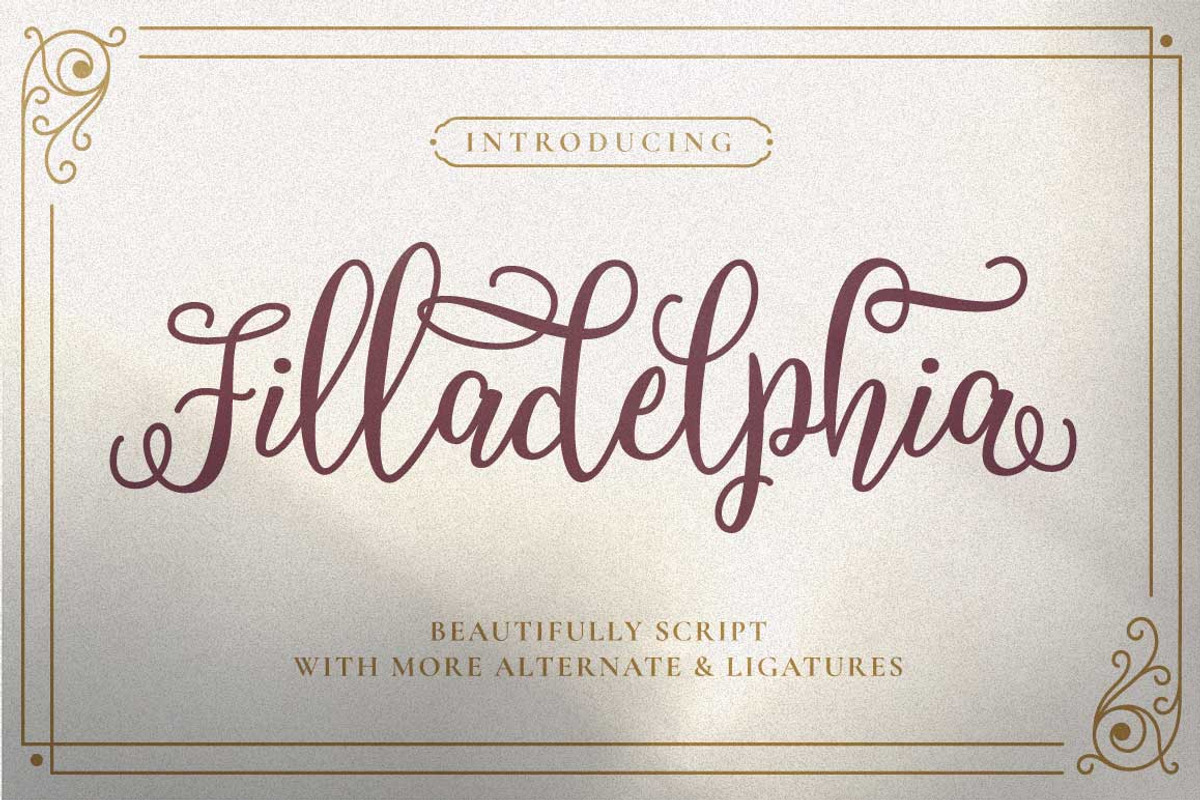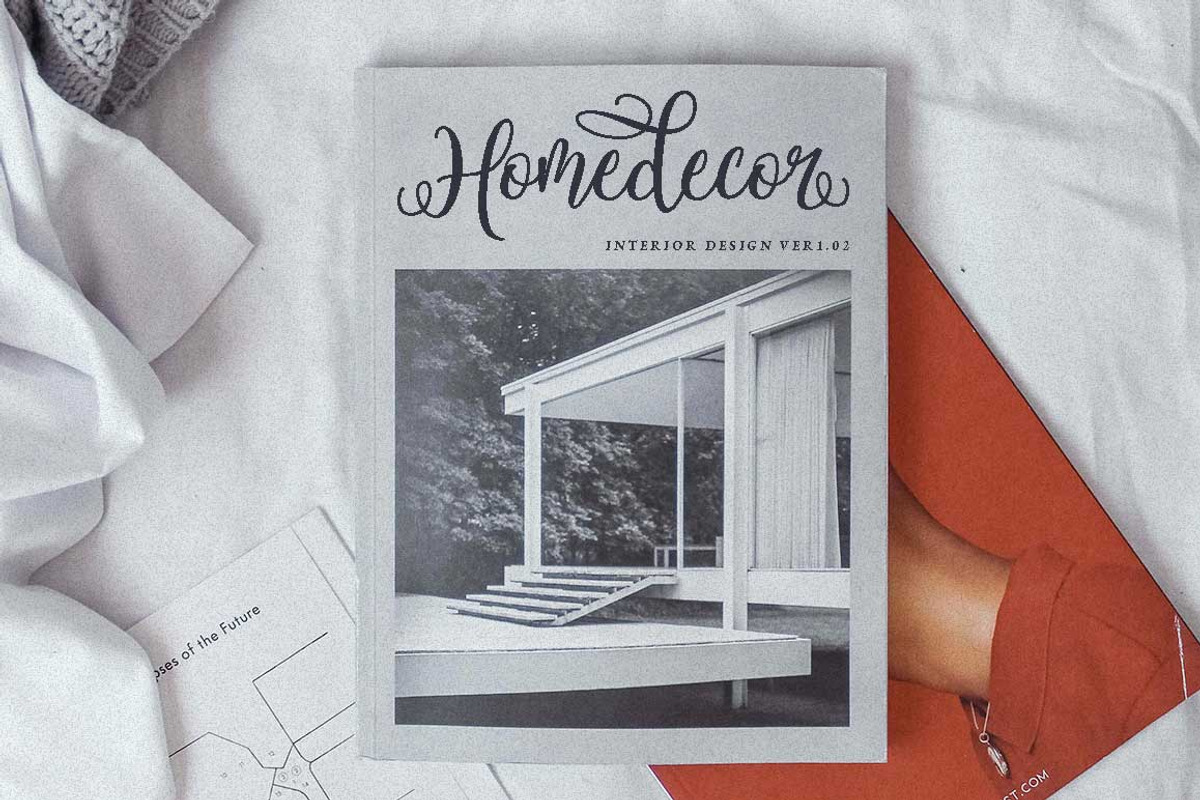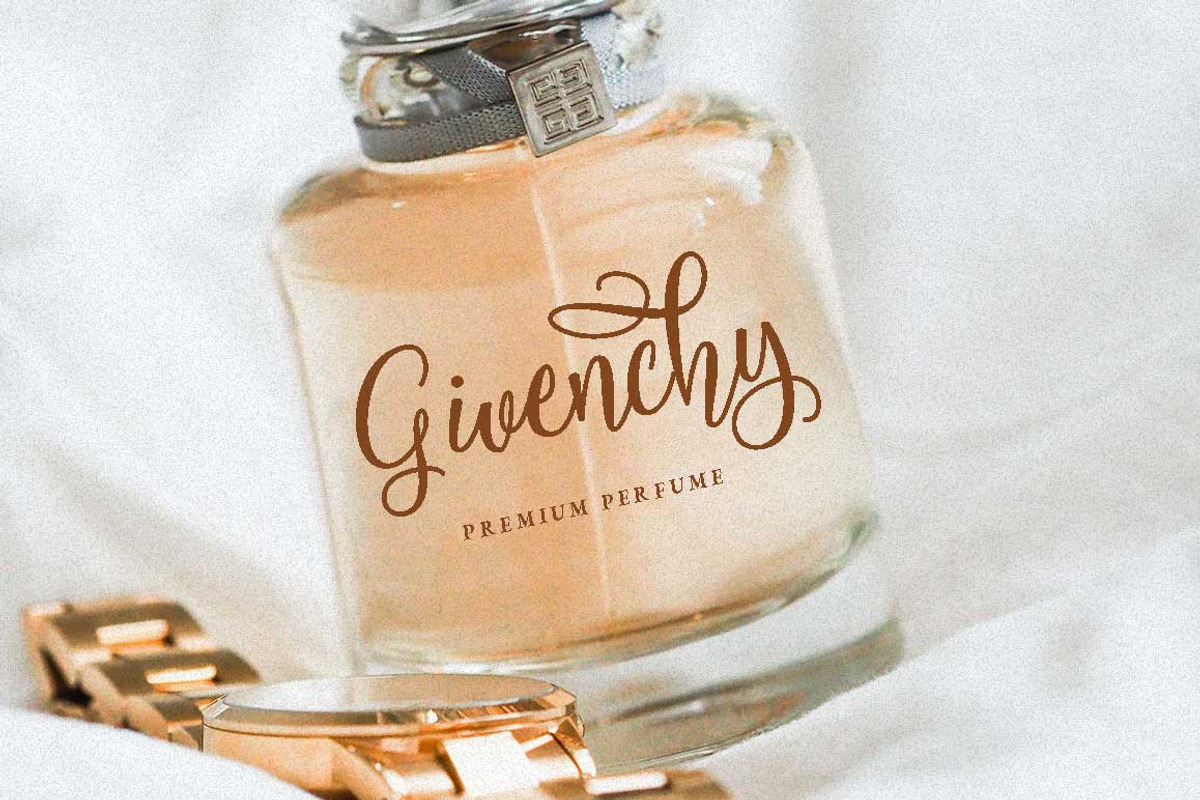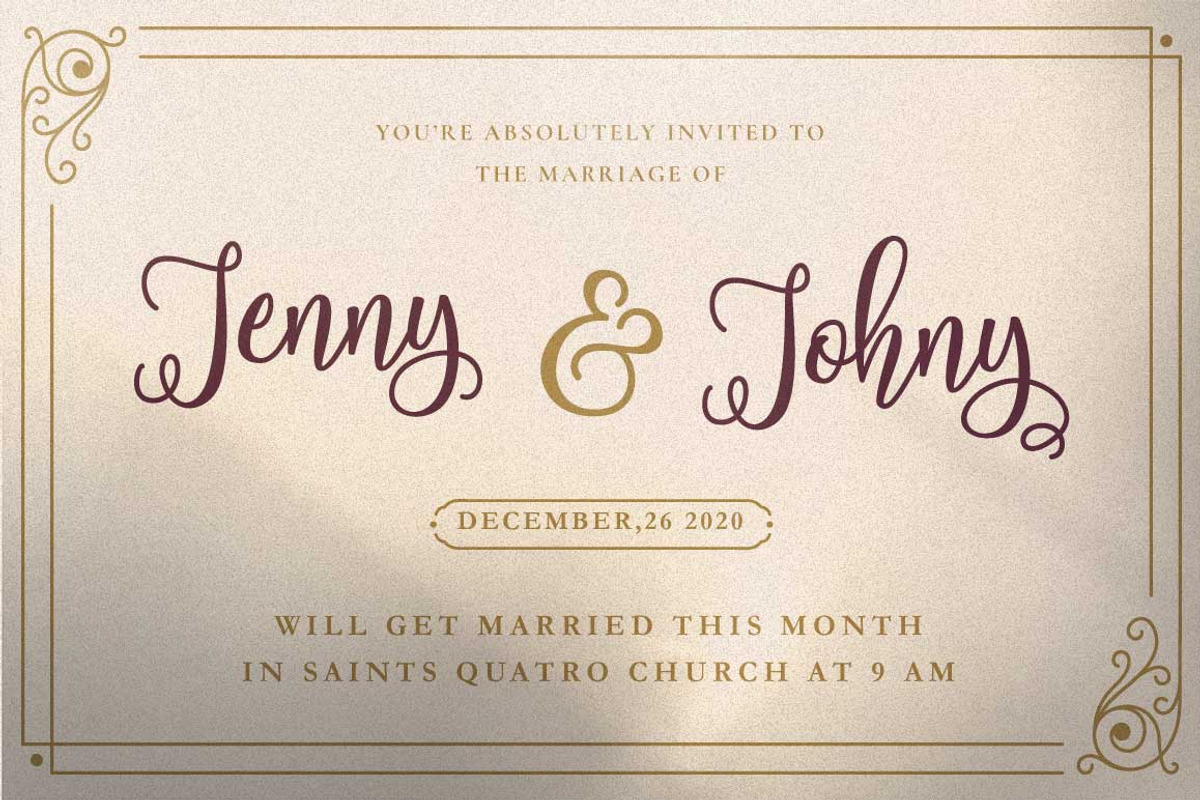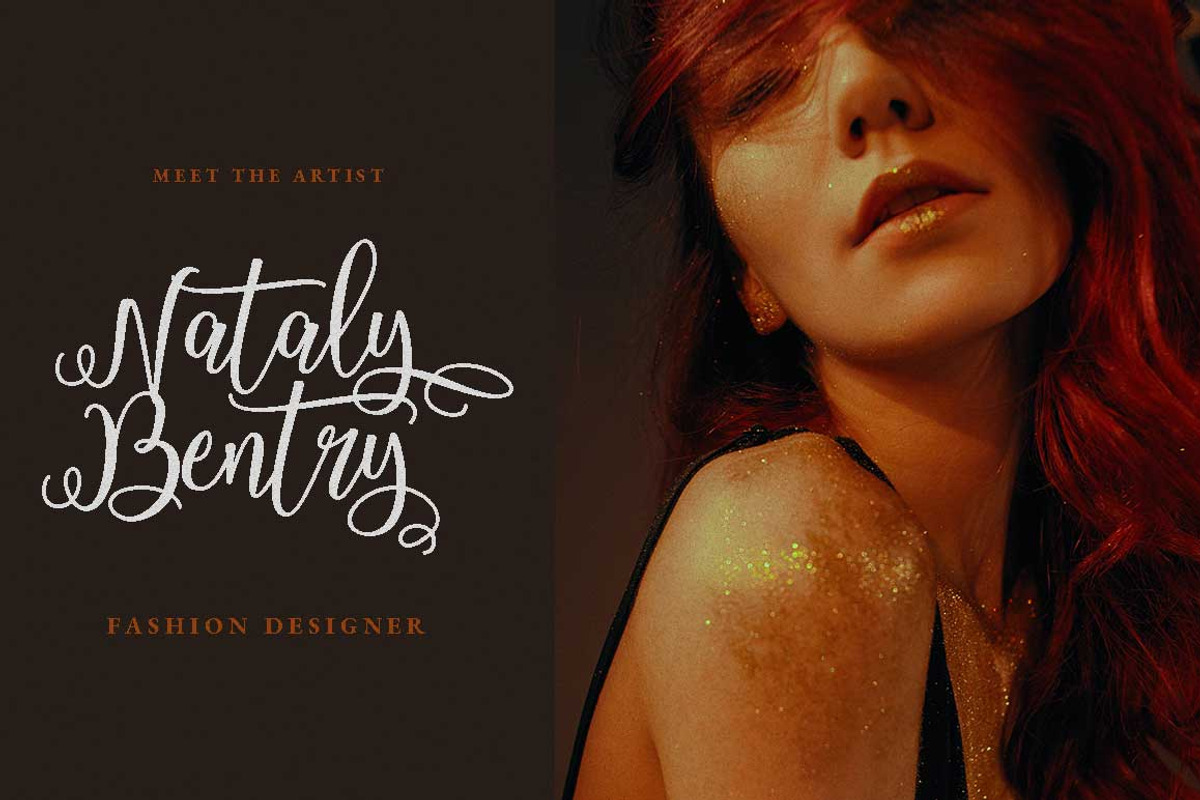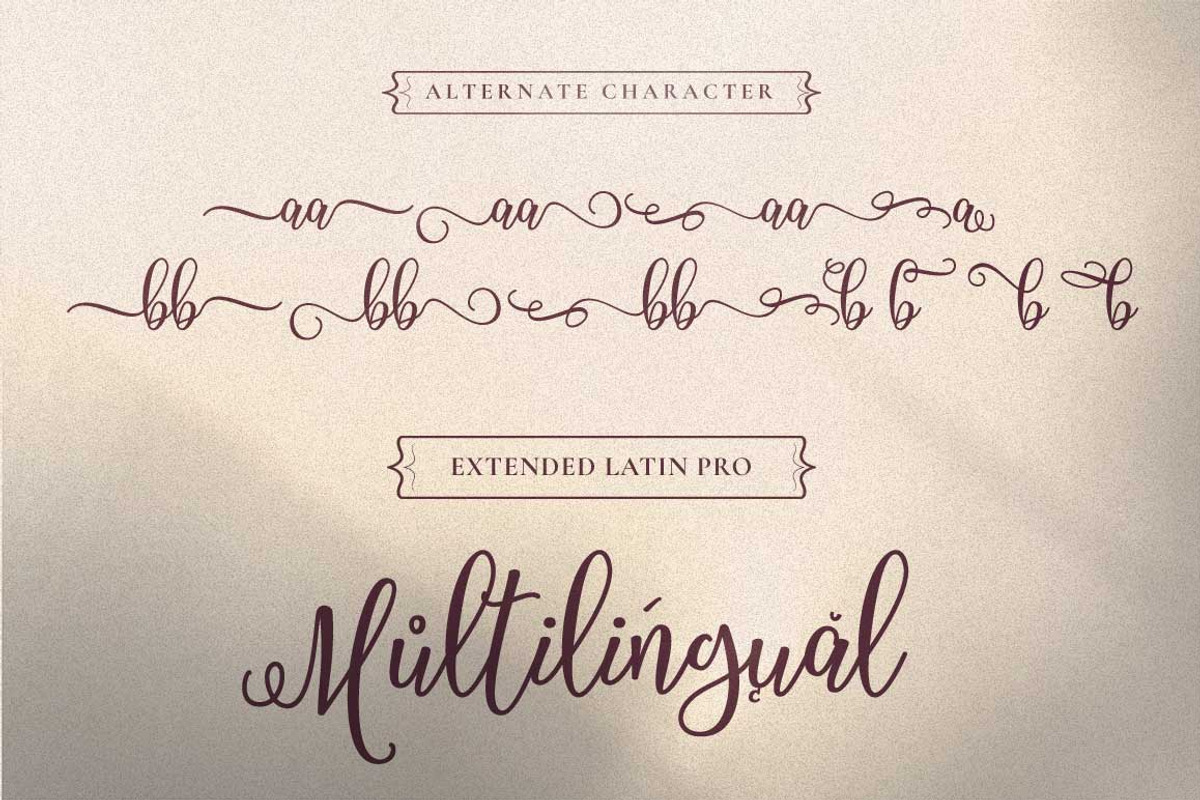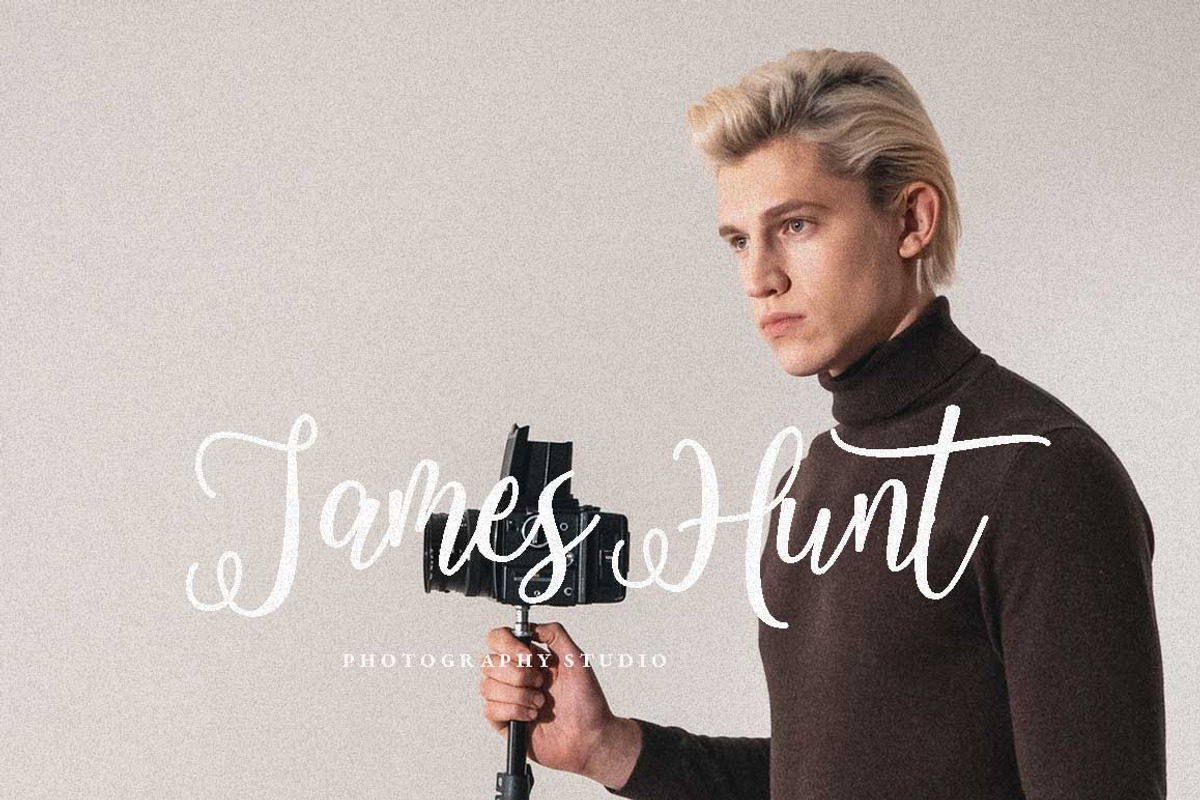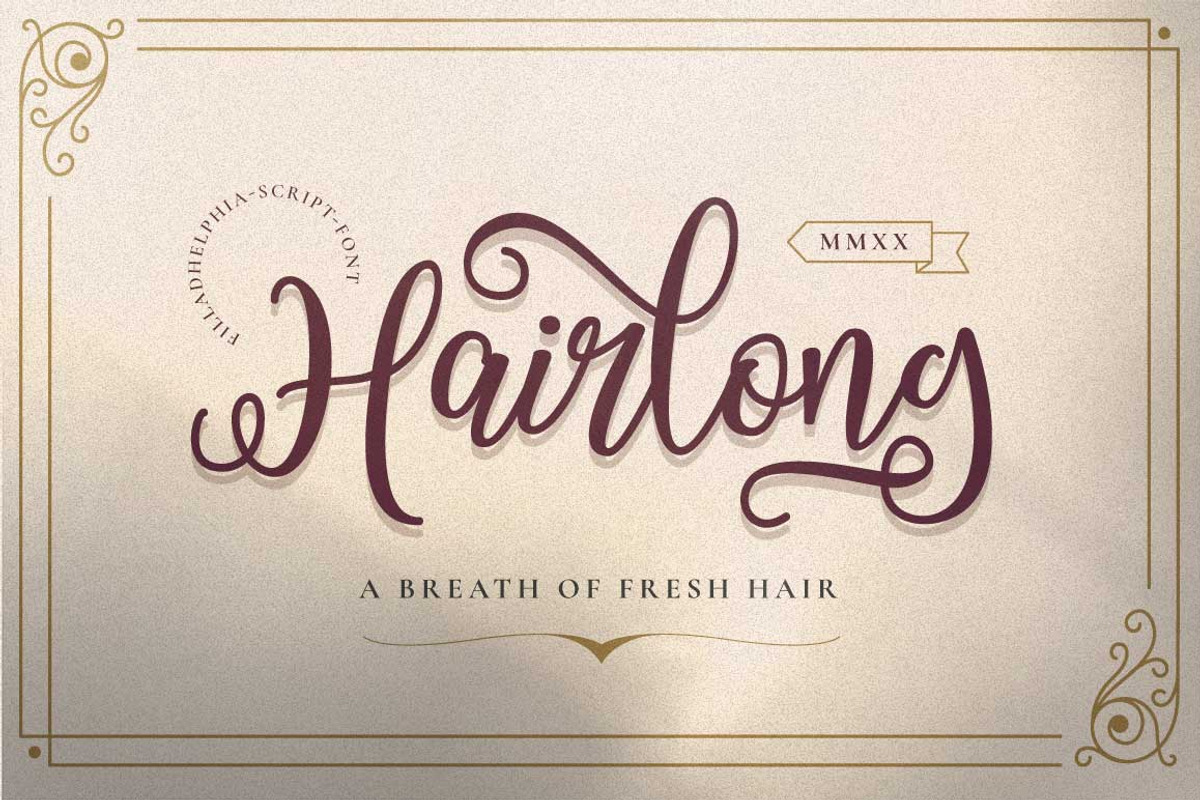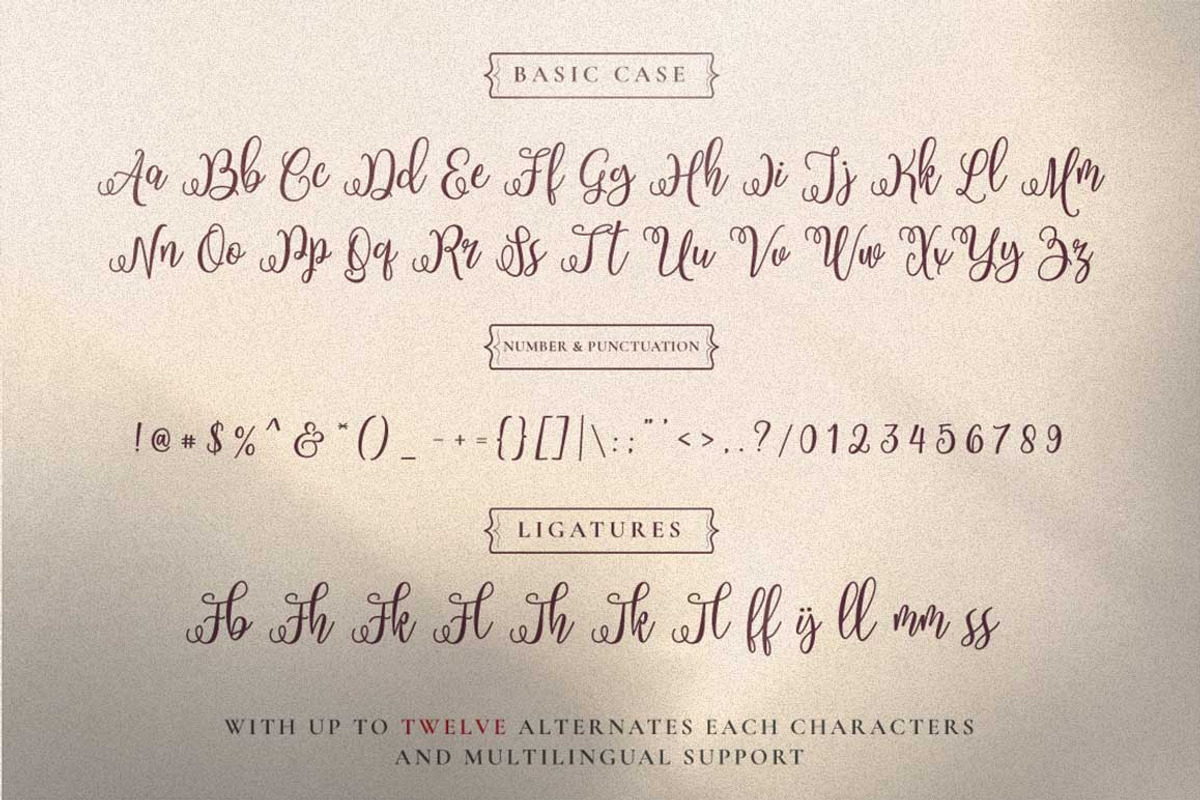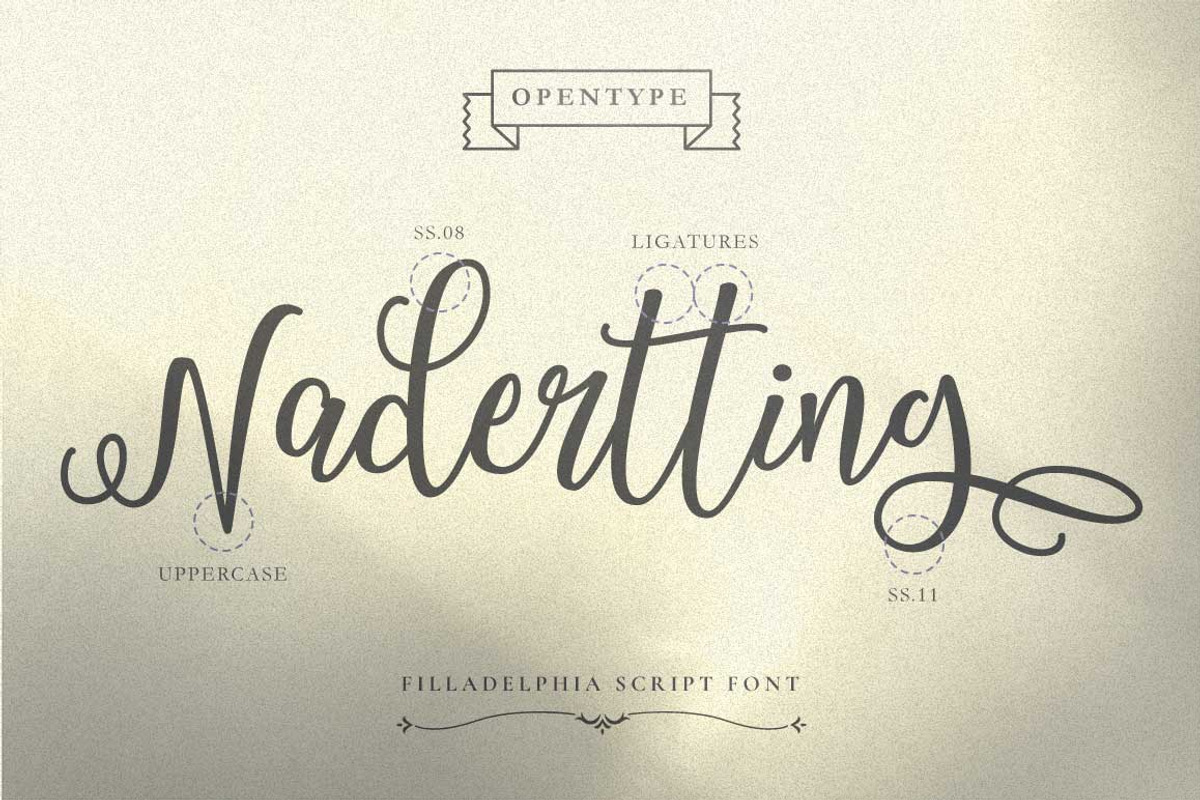
Filladelphia - Beautiful Script
Filladelphia | Beauty Font Elegant with a calligraphy style, So beautiful on invitation like greeting cards, branding materials, business cards, quotes, posters, and more!
The alternative characters were divided into several features such as Stylistic Sets, Stylistic Alternates, Contextual Alternate, SWASH and Ligature. The Open Type features can be accessed by using Open Type savvy programs such as Adobe Illustrator, Adobe InDesign, Adobe Photoshop Corel Draw X version, And Microsoft Word. And this Font has given PUA unicode (specially coded fonts). so that all the alternate characters can easily be accessed in full
- Hundred of glyphs
- Alternates and Ligatures
- Punctional
- Fonts include Multilingual Support
- Extended Latin